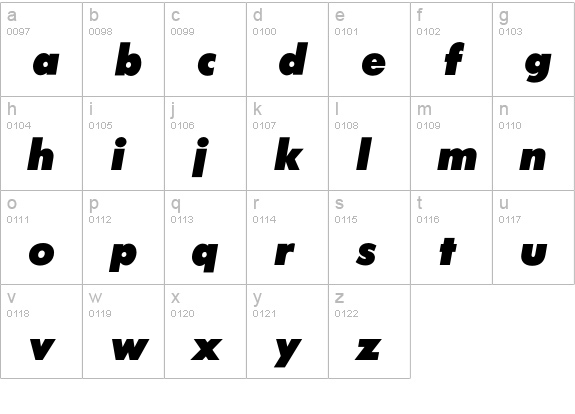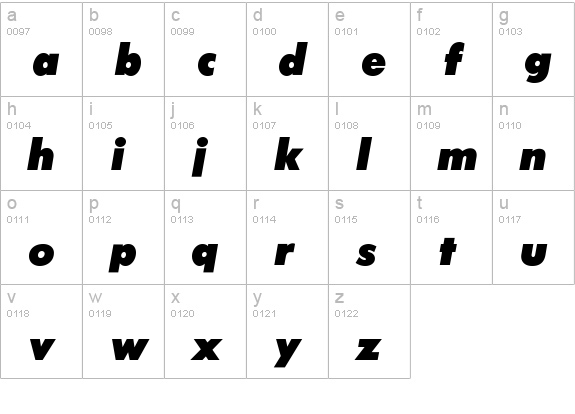
FuturaICG-XBoldOblique is a modern and stylish font that exudes elegance and sophistication. Its bold and slanted design adds a touch of flair to any project, making it perfect for branding, headlines, and display purposes. The sleek and futuristic appearance of this font makes it stand out and capture the attention of the audience. The best part about FuturaICG-XBoldOblique is that it is available for free download at FontsMarket.com. This means that you can easily access this high-quality font without any cost, making it a valuable addition to your font collection. Don't miss out on the opportunity to enhance your designs with the striking beauty of FuturaICG-XBoldOblique. Download it today and elevate your creative projects to the next level.